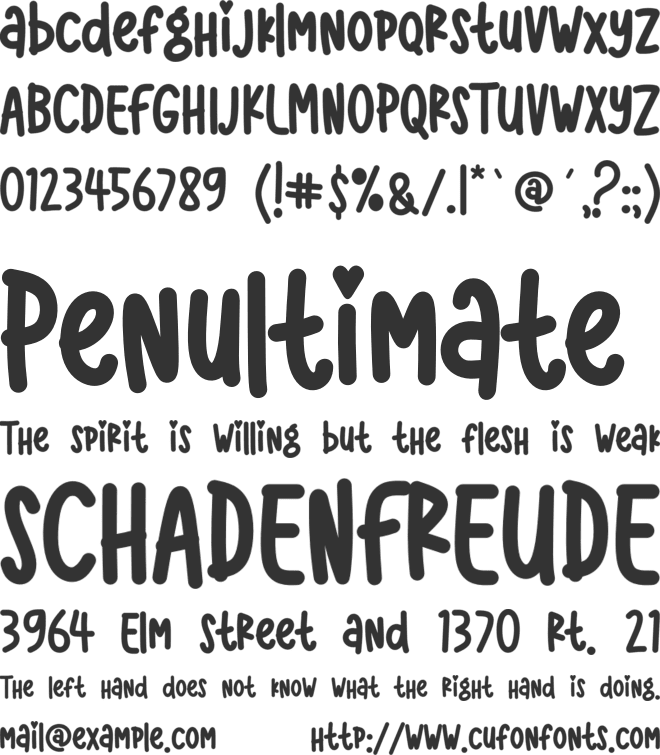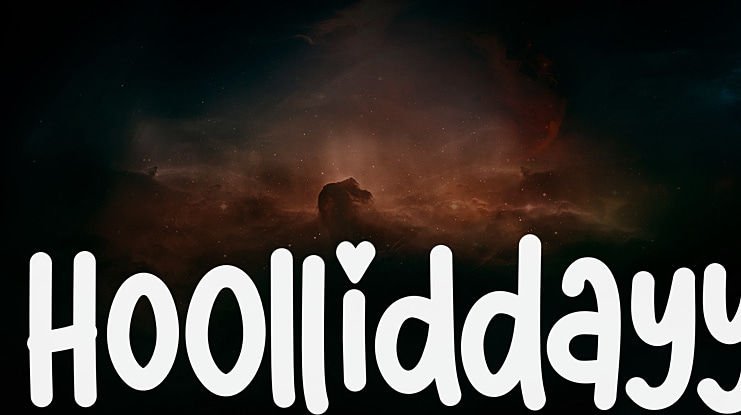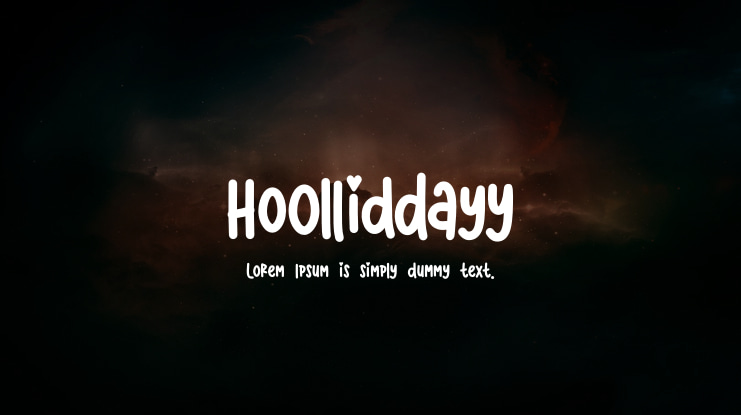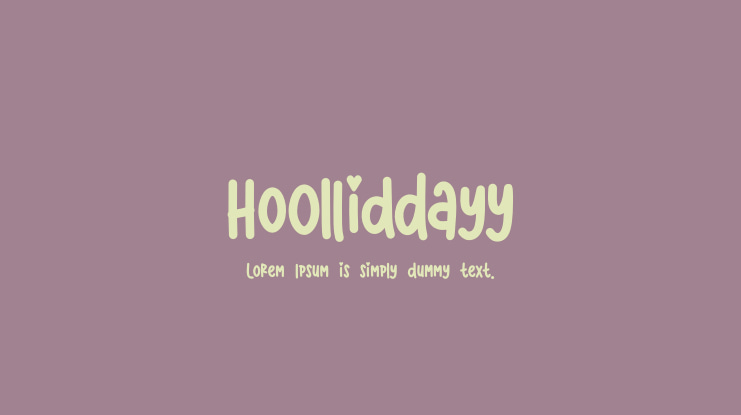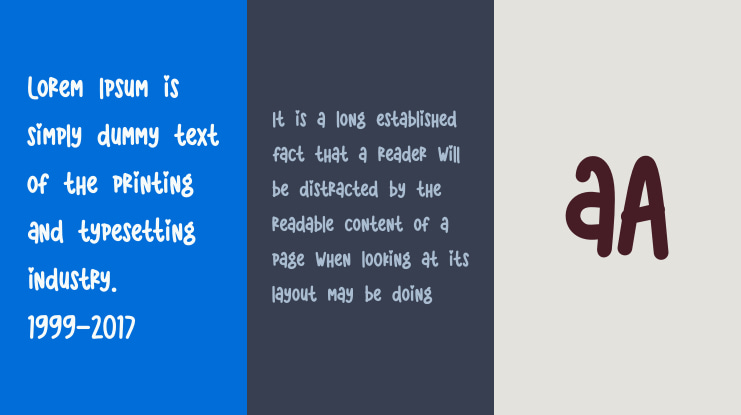
Hoolliddayy Font
Hoollidday is a unique and interesting display font. A little bit quirky, this font fits a wide pool of designs, elevating them to the highest levels. Add this font to your favorite creative ideas and notice how it makes them come alive!